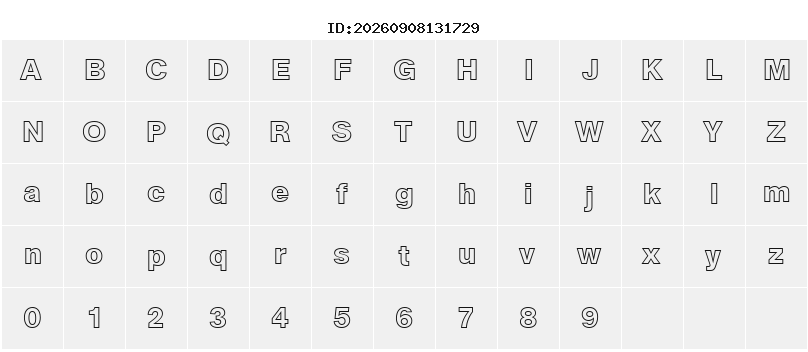
URWAccidaliaBucOutDBol Preview
• Font Name: URWAccidaliaBucOutDBol
• Full Font Name: URWAccidaliaBucOutDBol
• PostScript Name: URWAccidaliaBucOutD-Bold
About URWAccidaliaBucOutDBol.ttf
URWAccidaliaBucOutDBol.ttf is a modern, elegant sans-serif font designed for ultimate readability and visual harmony. Perfect for branding, headlines, web design, and print materials.